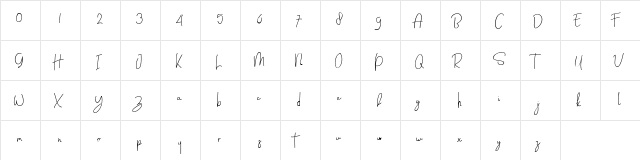
Massali Regular
| Foundry | Muhammad Romzul Khoir |
| Designer | Muhammad Romzul Khoir |
Design Context for Massali Typeface
Massali is a composed and adaptable typeface that performs quietly and consistently across a wide range of design contexts.